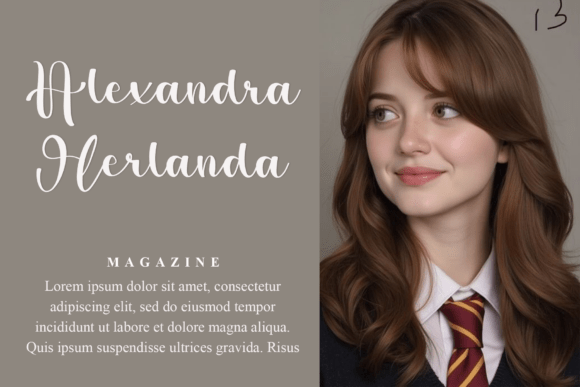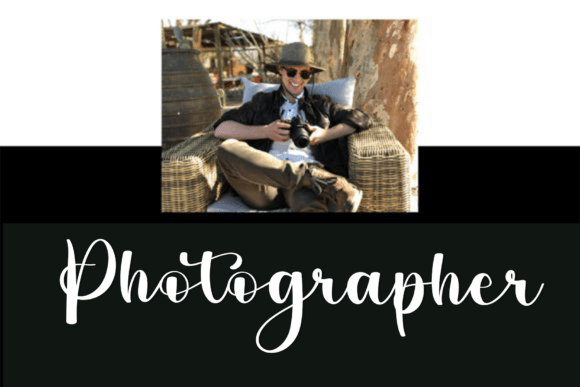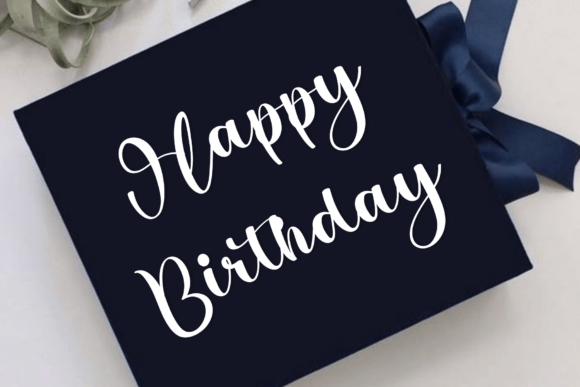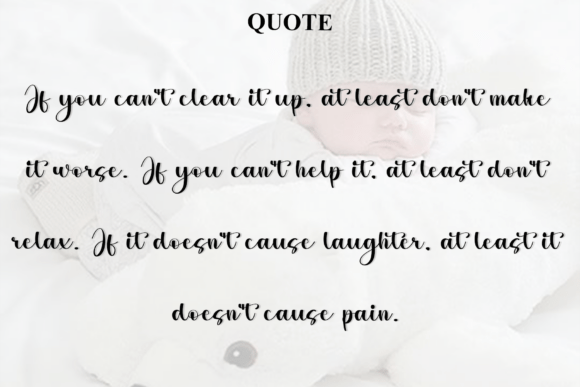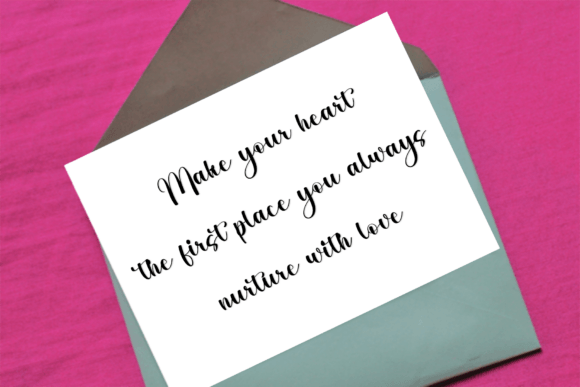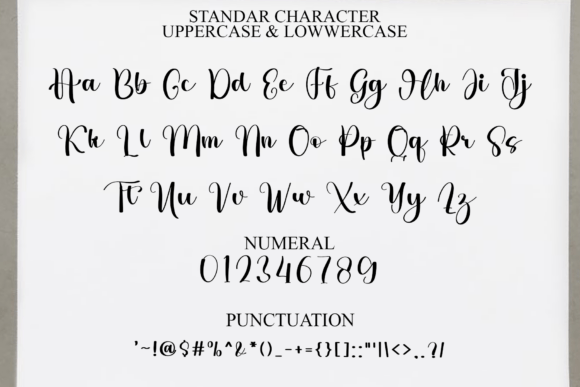
The Perfect Font for a Creative Moment
Have you ever been working on a project, and suddenly, the right font just clicks? It’s as if the whole design falls into place, and you can’t help but feel a sense of satisfaction and joy. This is exactly what happens when you use the Beauty Nature Font.
This casual and creative font is designed to exude warmth and friendliness, making it perfect for personal projects, invitations, and social media graphics. Its round, playful strokes create a relaxed and approachable feel that’s sure to engage your audience. Whether you’re a professional designer or a hobbyist, the Beauty Nature Font is a valuable addition to your toolkit, adding a fun and unique touch to any design.
Key Features of Beauty Nature Font
- Font Size and Style: This font comes in 4 different font sizes (Regular, Bold, Italic, and Bold Italic) to cater to various design needs.
- Unique Characteristics: Beauty Nature Font is designed with a natural and elegant feel, featuring flowing lines, rounded edges, and subtle texture, making it perfect for creating a soothing and calming atmosphere.
Beauty Nature Font Review
Overall, I think Beauty Nature Font is a visually appealing and elegant choice for any design project that requires a natural and earthy feel. ✨
Here are some aspects where I think it shines:
- Unique aesthetic: The font’s combination of hand-drawn and digital elements creates a one-of-a-kind look that’s perfect for projects that want to stand out.
- High-resolution quality: The font looks crisp and clear in high-resolution formats, making it suitable for print or digital applications.
- Easy to read: Despite its unique design, the font is still easy to read and understand, which is essential for effective communication.
However, I do have a few concerns:
- Flexibility limitations: The font’s unique design may not be suitable for projects that require a lot of flexibility, such as titles or headings that need to be resized or reformatted.
- Palette limitations: The font’s natural color palette may not be suitable for projects that require a bold or vibrant color scheme.
Overall, I think Beauty Nature Font is a solid choice for designers who want to create a natural and earthy look, but it may not be the best fit for projects that require a lot of flexibility or a bold color scheme. ⚠️
Tips for Getting the Most Out of the Beauty Nature Font
For the most effective use of the Beauty Nature Font, keep the following tips in mind:
- Use the font for titles, headings, and emphasis.
- Pair the font with a clean and minimalist design.
The Beauty Nature Font is ideal for:
- Outdoor and nature-themed designs.
Q: Can I customize the Beauty Nature Font for my specific design project?
Yes, you can customize the Beauty Nature Font to suit your design needs. The font includes a range of OpenType features, such as ligatures, swashes, and stylistic sets, which can be accessed using your design software’s font feature panel. Additionally, you can experiment with font pairing, color manipulation, and other creative techniques to achieve a unique look for your project.